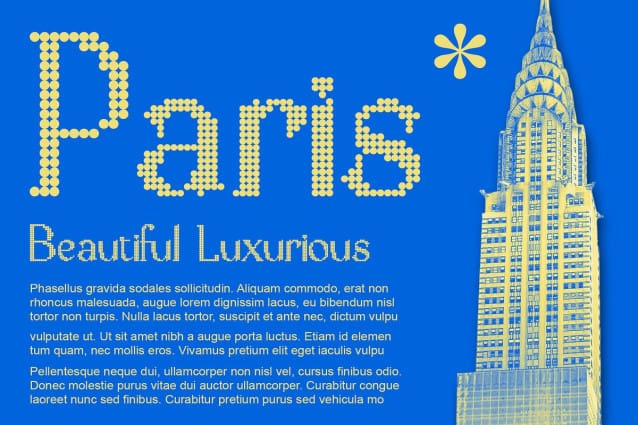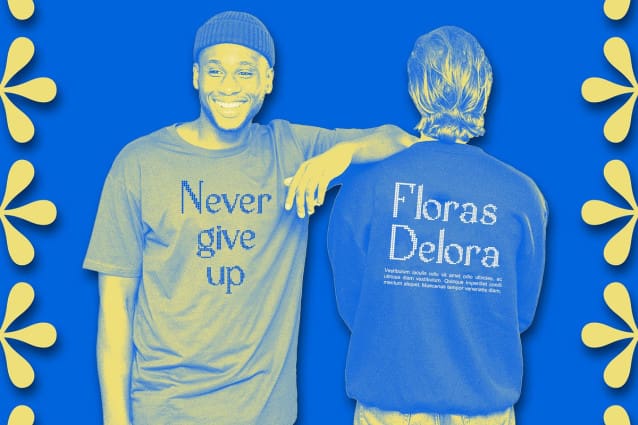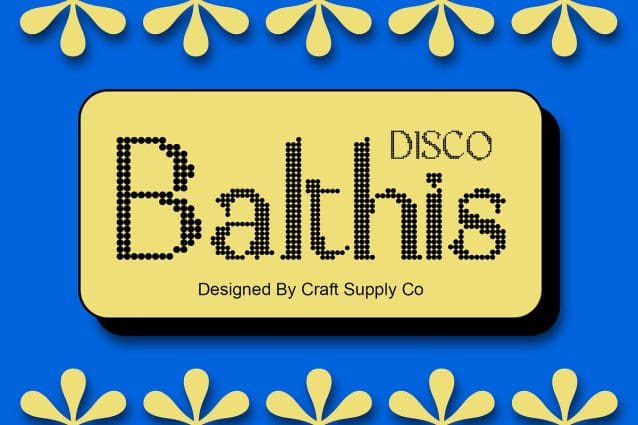
Balthis Disco Font
Balthis Disco Font: Bringing Disco Vibes to Typography. Disco-inspired Design Balthis Disco features a unique display style with low contrast and mesmerizing dot effects, reminiscent of the vibrant disco era. Its dynamic appearance adds a touch of retro flair to any project.
Groovy Disco Nuances With its dot effects and low contrast, This font exudes a groovy vibe that captures the essence of disco culture. Each character pulsates with energy, evoking memories of disco balls and dance floors.
Perfect for Eye-catching Displays Tailored for display purposes, This font shines in various applications, from event posters to album covers. Its captivating design ensures that your message grabs attention and leaves a lasting impression.
Versatile Application Beyond its disco-inspired aesthetic, This font offers versatility in application. Whether used in branding, advertising, or digital media, its unique style adds a playful and energetic touch to any design.
Retro Charm for Modern Design This font infuses your projects with the retro charm of the disco era. With its low-contrast display and captivating dot effects, it brings a sense of fun and nostalgia to typography, making it perfect for eye-catching displays across various design contexts. Step into the disco era with This font and let your creativity shine!